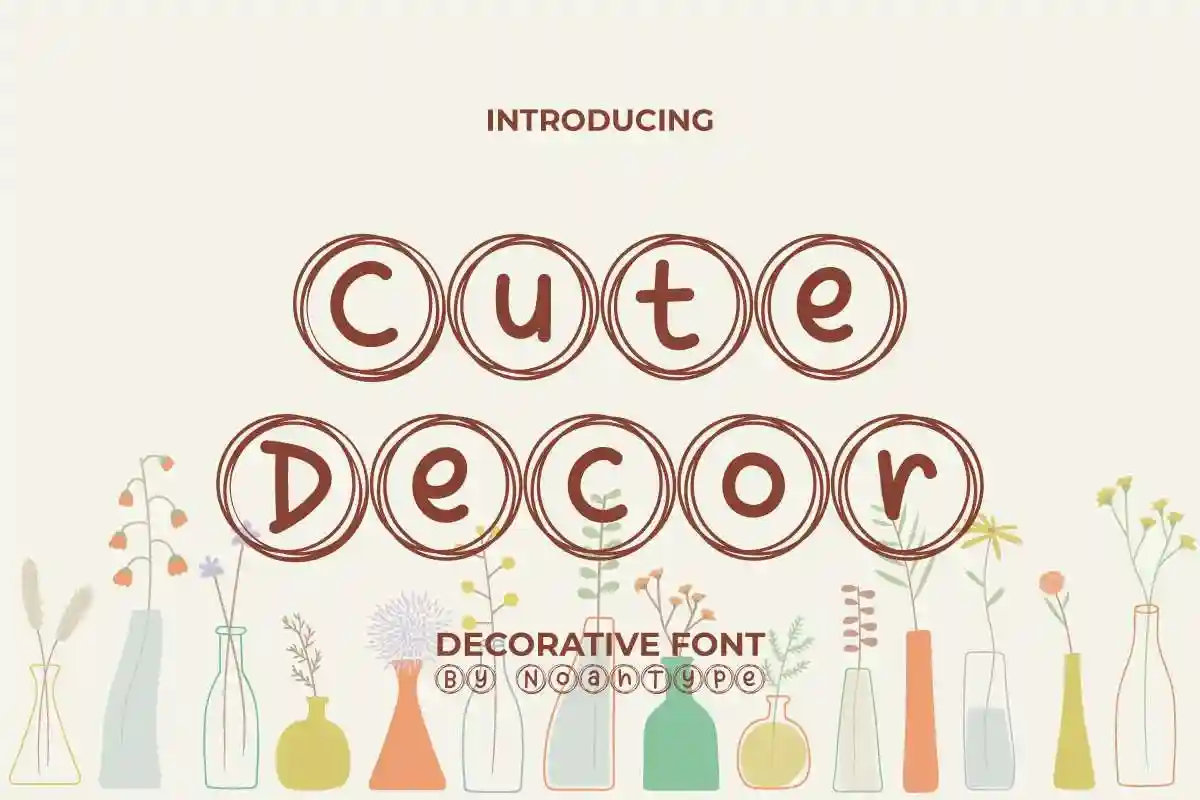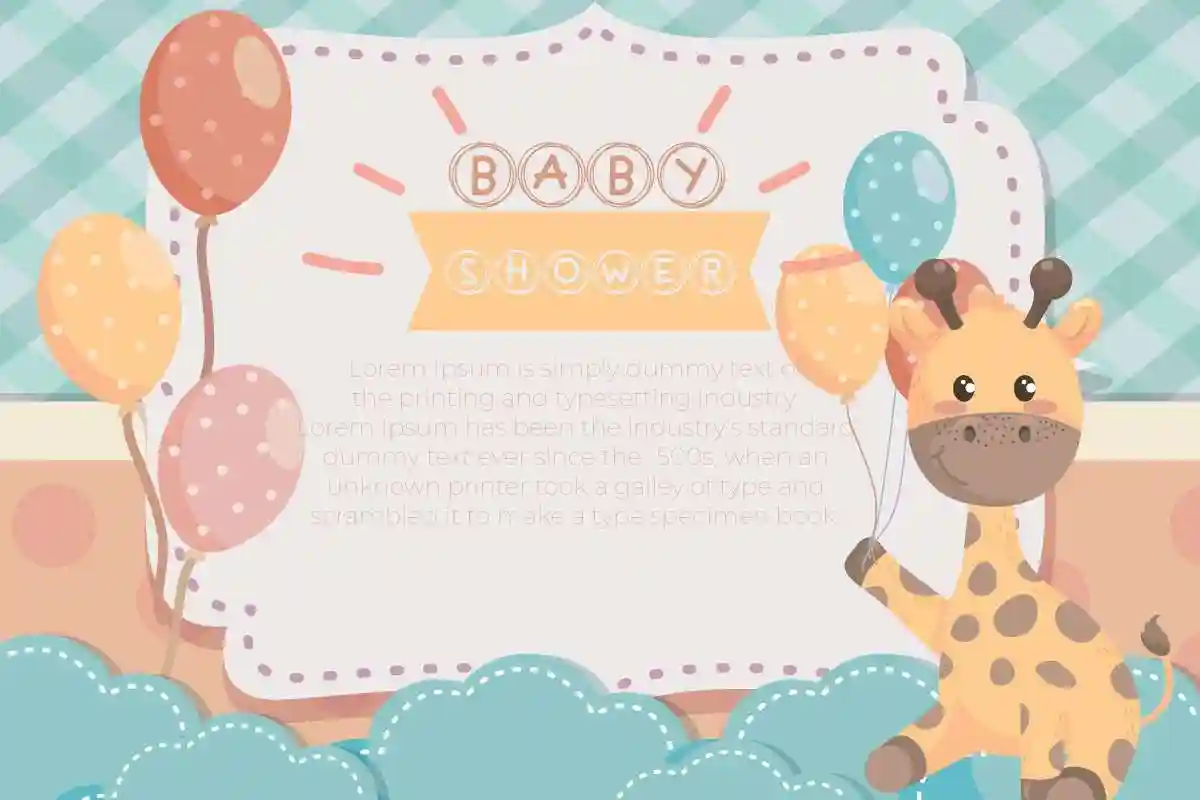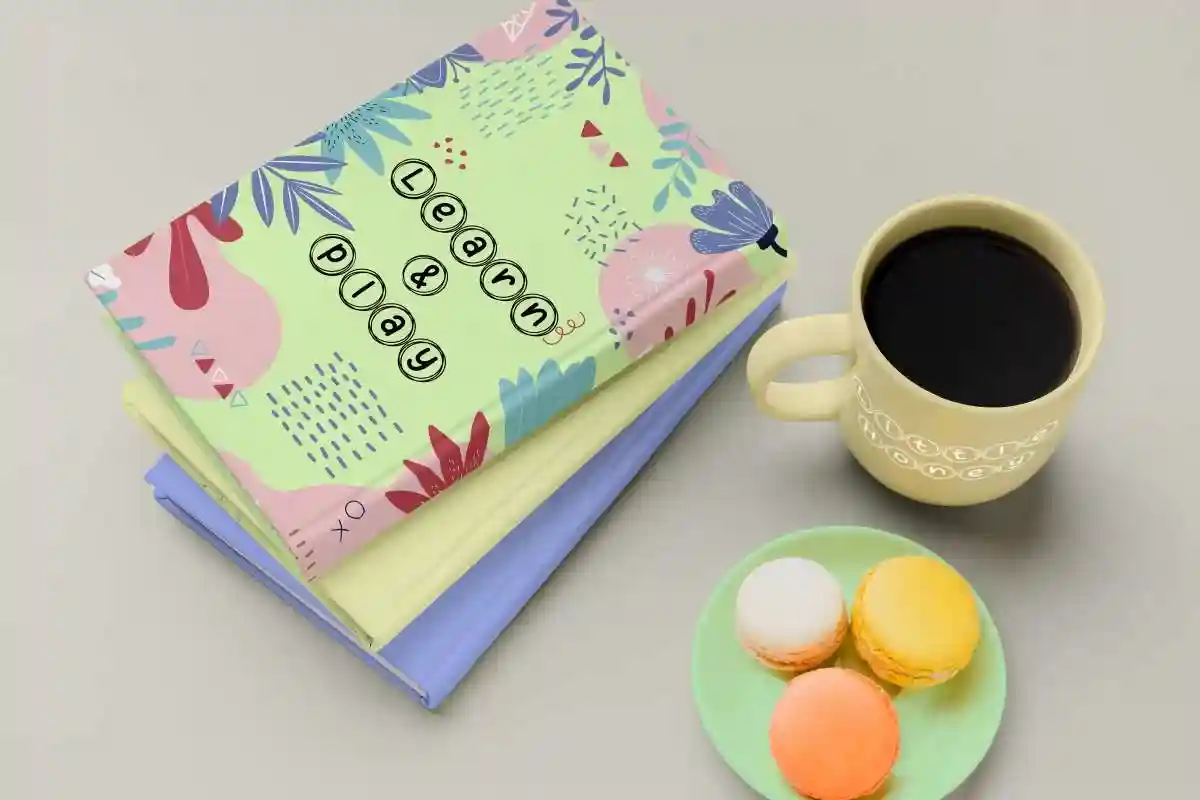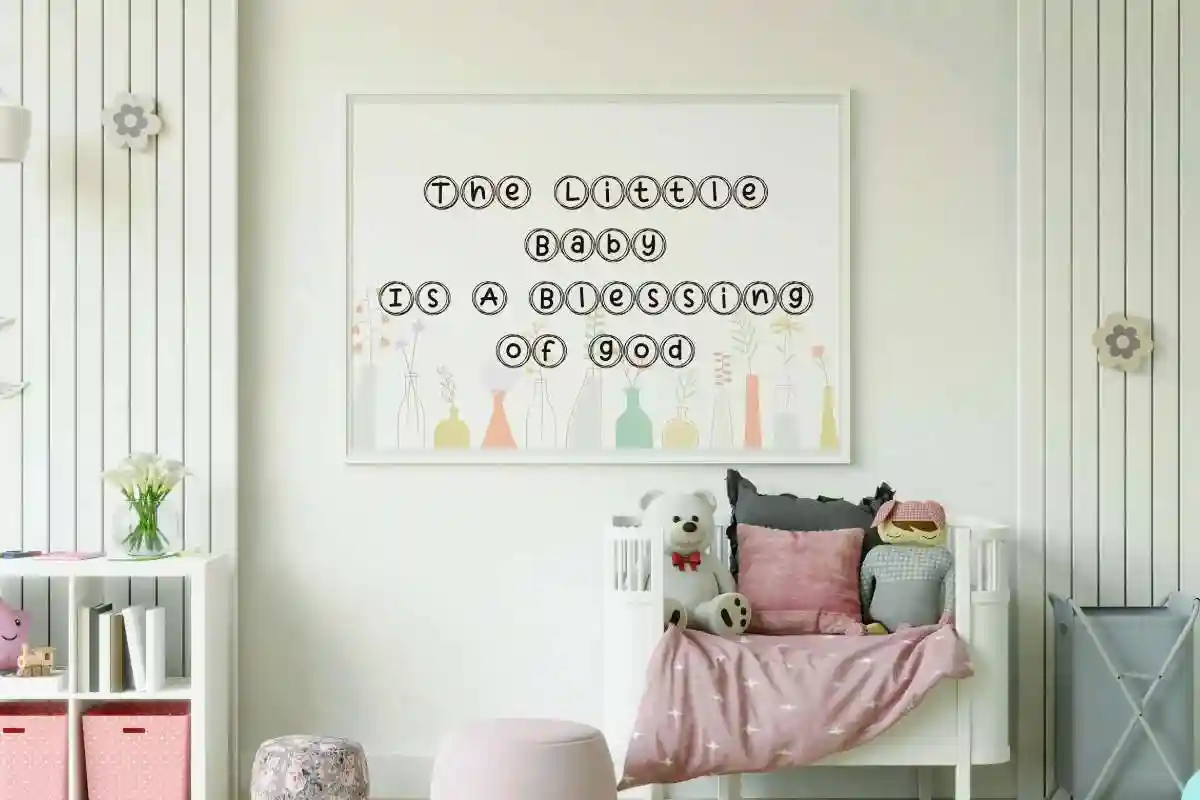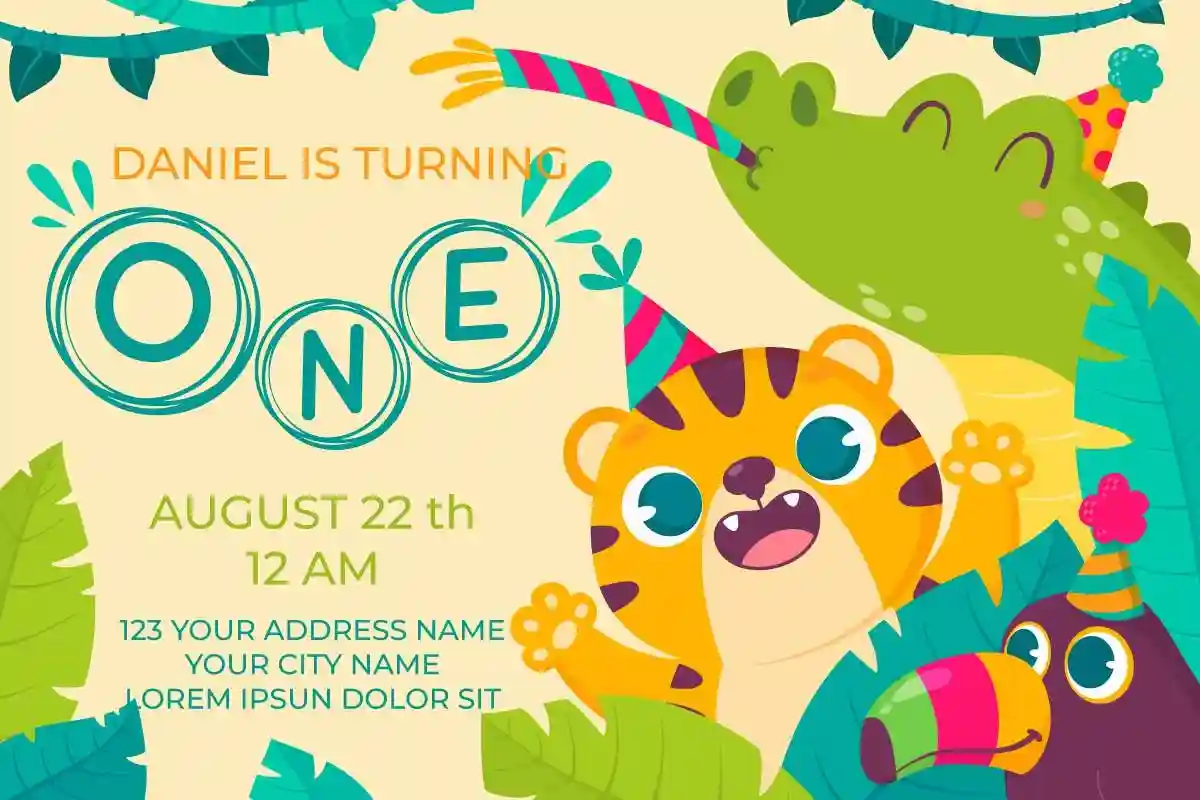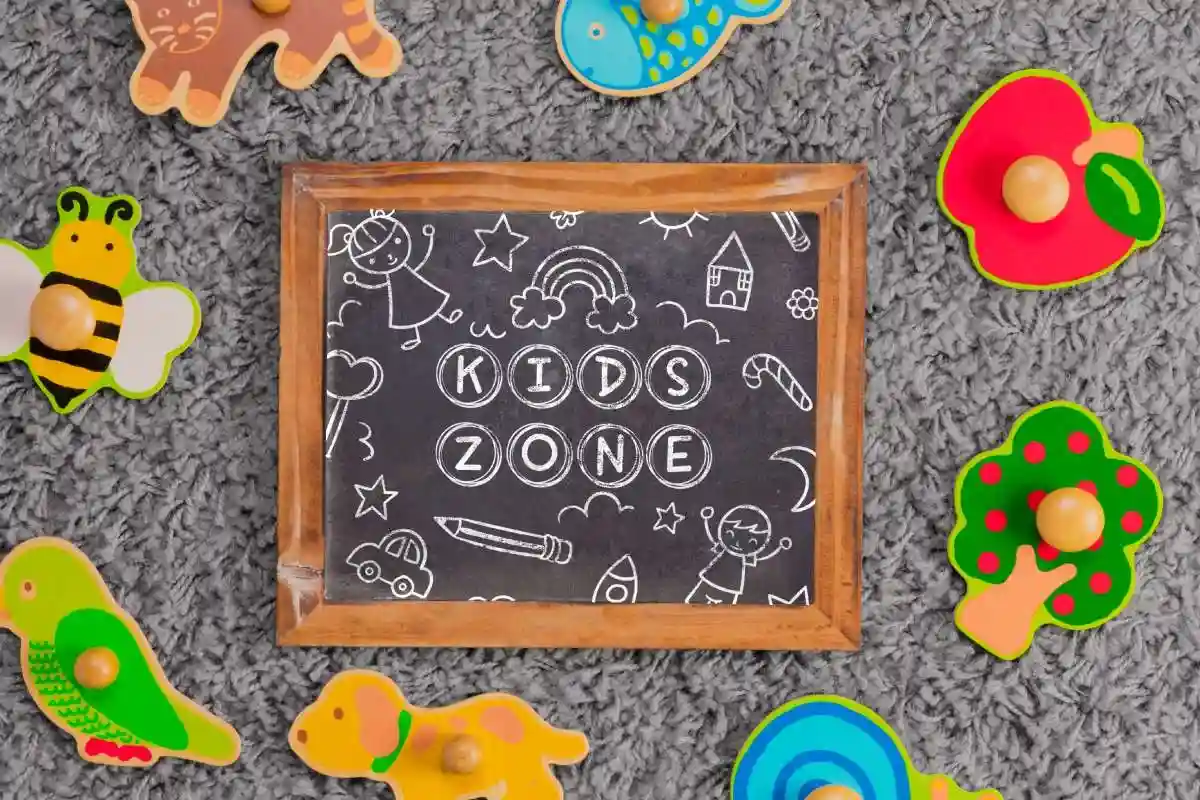
Cute Decor Font is a decorative display font. The font is handwritten monoline with a circle on each letter, making it simple and unique. This font works for businesses or companies such as, fashion, games, kids, school, writers etc.
It includes a set of Uppercase and Lowercase Basic Characters, Numerals and Punctuation. The font is perfect for many projects, book cover, logo branding, invitation, photography, product packaging, signage, titles and many more!